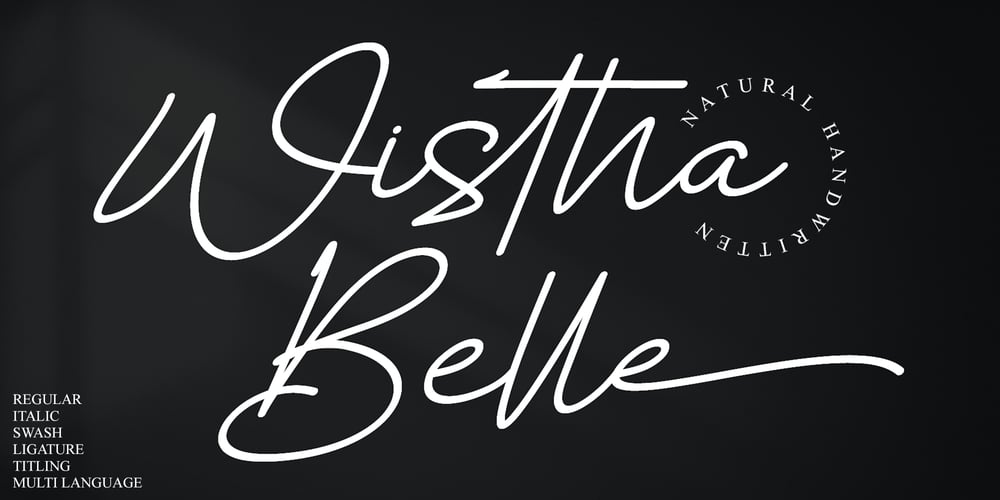
Wistha Belle Font Family was designed by Ahmad Afandi and published by Letterafandi Studio. Wistha Belle contains 2 styles and family package options. Wistha Belle is an exceptionally intricate handwritten font. This font truly captures the authenticity and organic flow of natural handwriting. More than just aesthetically pleasing, Wistha Belle ups the ante with an array of special glyphs that further enhance its appeal. Explore transfixing swashes, elegant ligatures, and exquisite titling, all embedded into this font for multifaceted expressive features. Wistha Belle, presenting the charm of the handmade world in a unique font style.